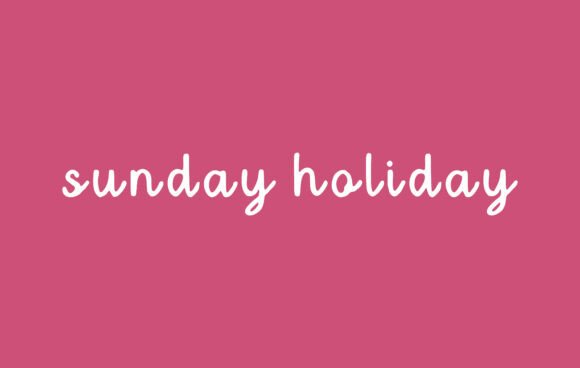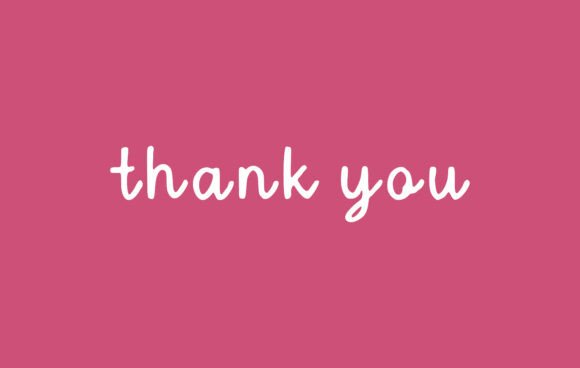
Introduction to Lilian Font
Lilian font is an authentic handwritten font with a romantic touch.
Key Features of Lilian Font
Why Choose Lilian Font?
Lilian Font offers exceptional quality and versatility, making it a valuable addition to your design toolkit. Whether you’re creating for personal projects or commercial use, Lilian Font delivers professional results.